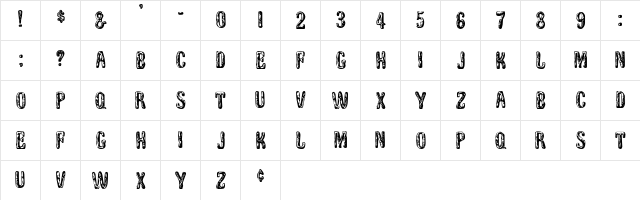
Driftwood67 Regular
Design Context for Driftwood67 Typeface
Driftwood67 taps into classic Western woodtype traditions — bold, characterful, and impossible to ignore.
Perfect for barbecue restaurants, country music branding, vintage poster design, and rustic packaging.
Font Pairing: Combine Driftwood67 with a simple slab or neutral sans — period-accurate companions reinforce the vintage feel without competing for attention.
Pro Tip: Pair Driftwood67 with aged textures or distressed backgrounds to amplify its vintage personality.